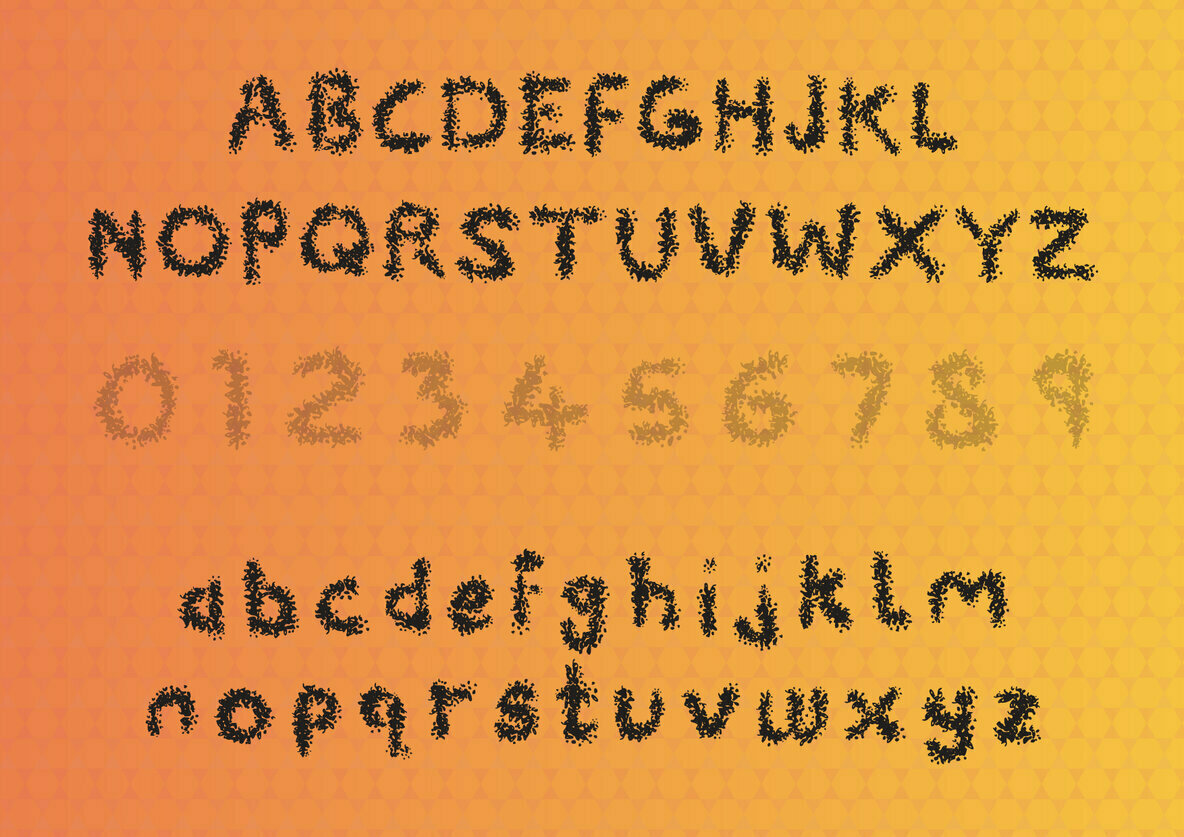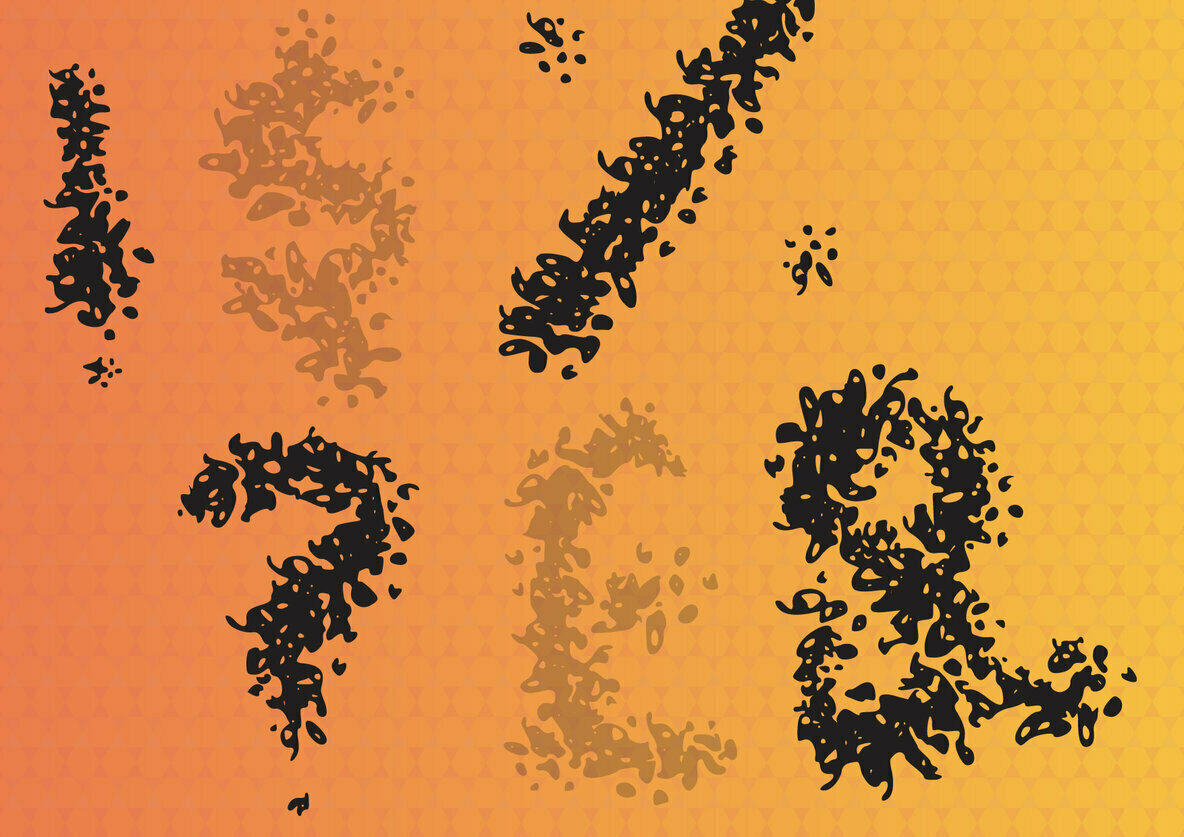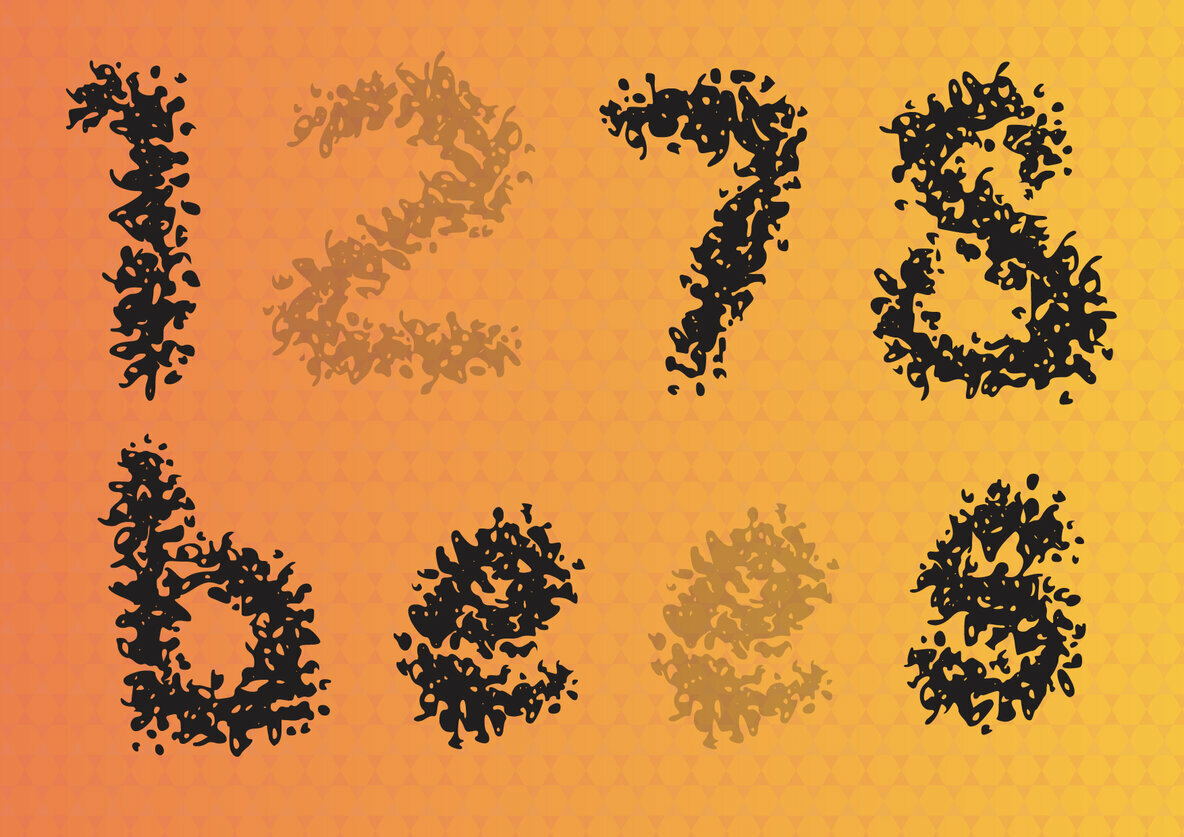
Swarm Font
Swarm
Swarm is a fun and casual display font. This enchanting font will turn any creative idea into a true standout. Get creative with its childlike playfulness, and use it to brighten up any kids and school project with a insect theme.